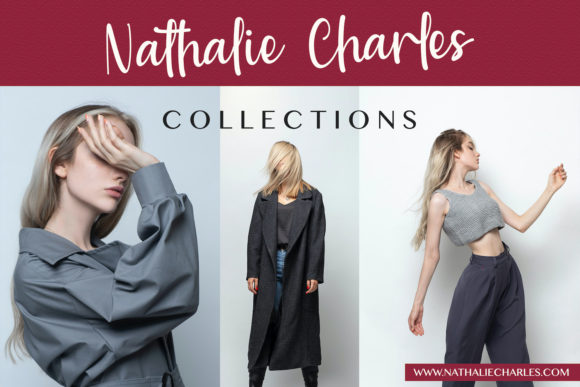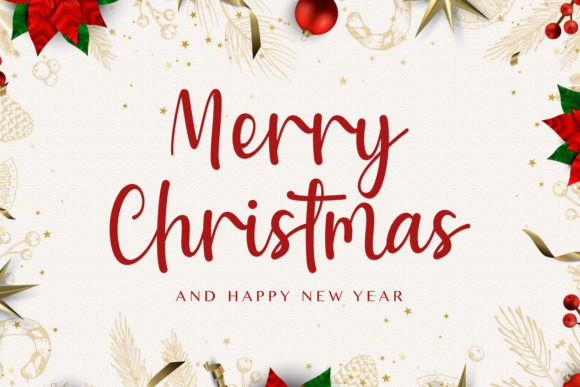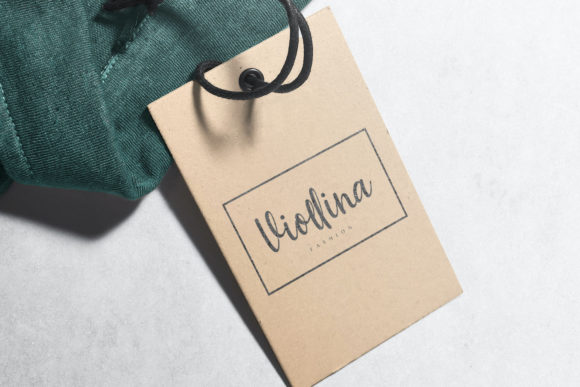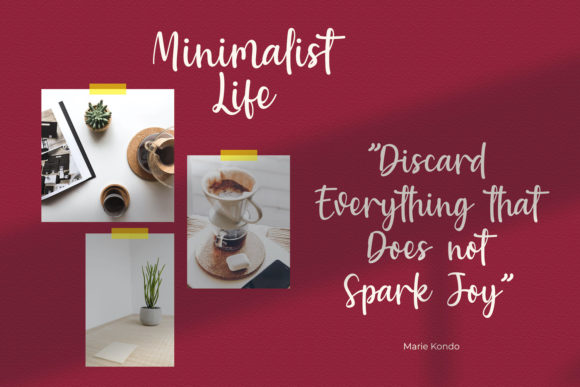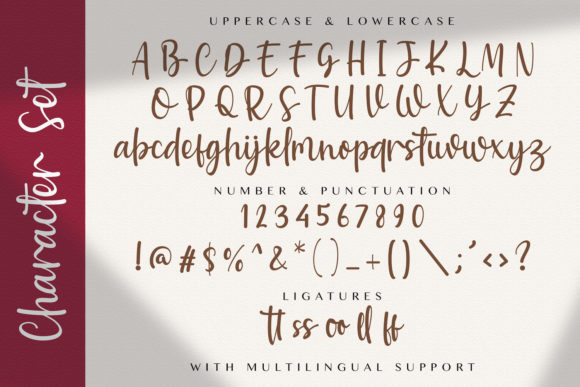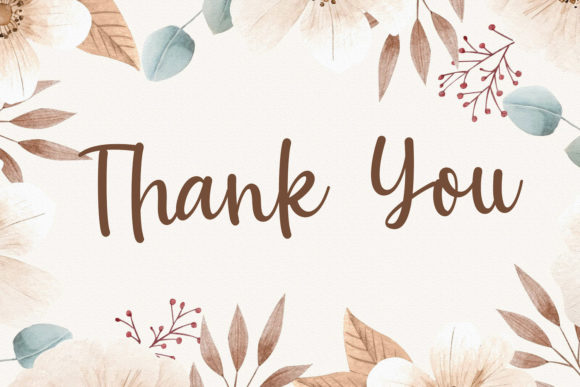
About Baweni Font
Baweni is a fun and friendly handwritten font. It will elevate a wide range of design projects to the highest level, be it branding, headings, wedding designs, invitations, signatures, logos, labels, and much more!